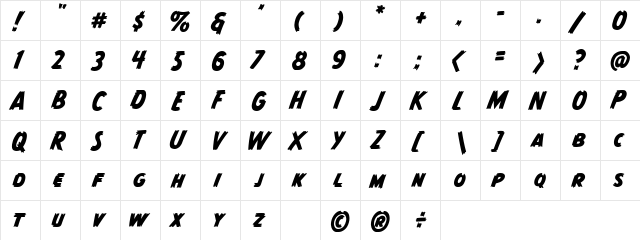
CC Monster Mash Medium
Design Context for CC Monster Mash Typeface
CC Monster Mash is a composed and adaptable typeface that performs quietly and consistently across a wide range of design contexts.
Pro Tip: Use CC Monster Mash in both headline and body roles to test its range before committing to a single application.